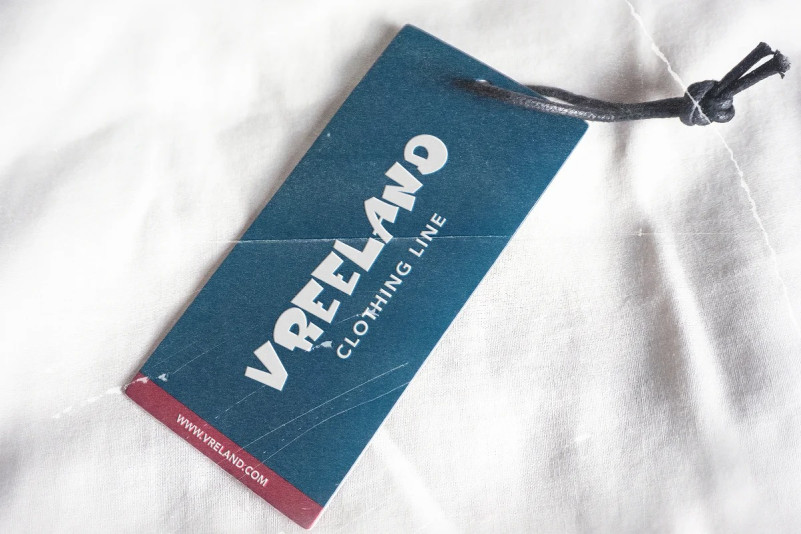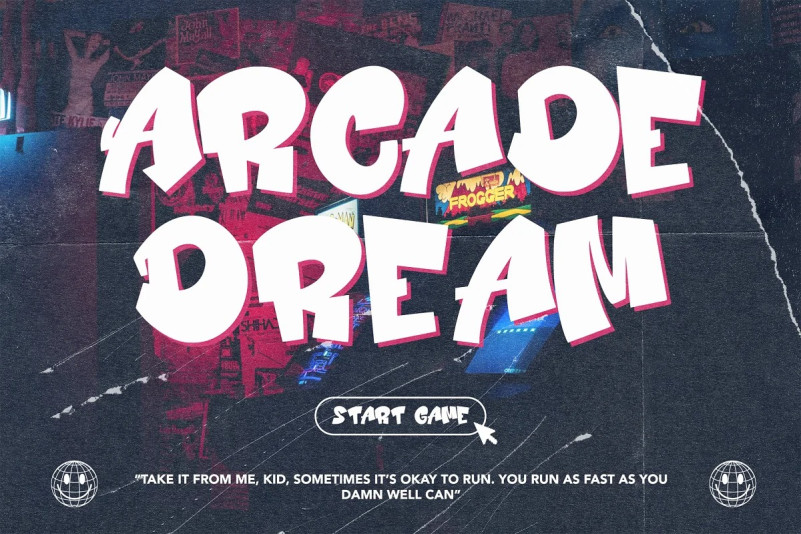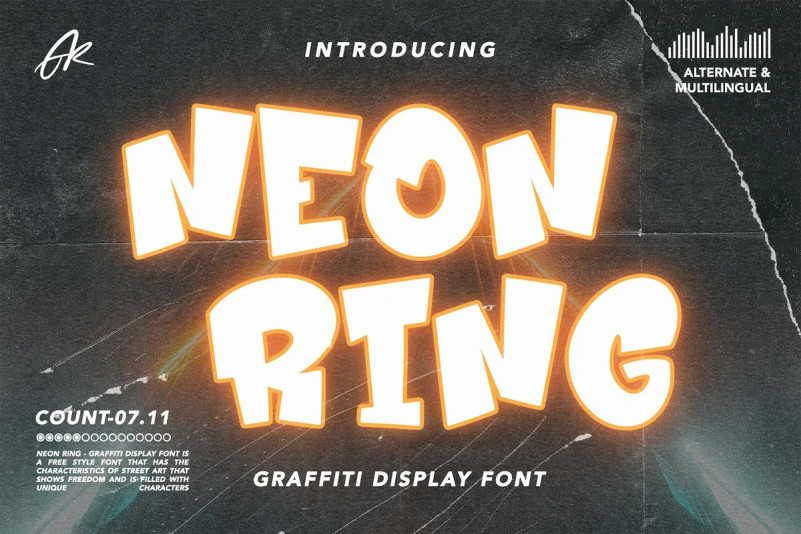
Neon Ring Font
Neon Ring – Graffiti Display Font is a free style font that has the characteristics of street art that shows freedom and is filled with unique characters